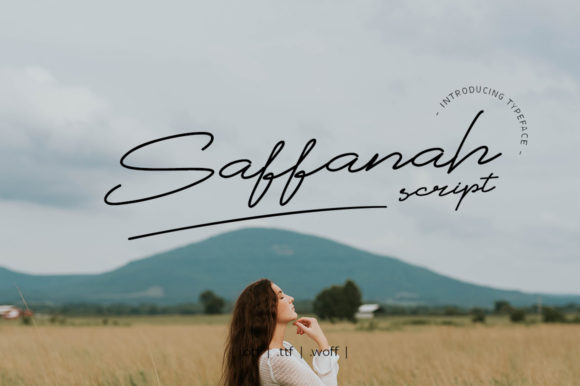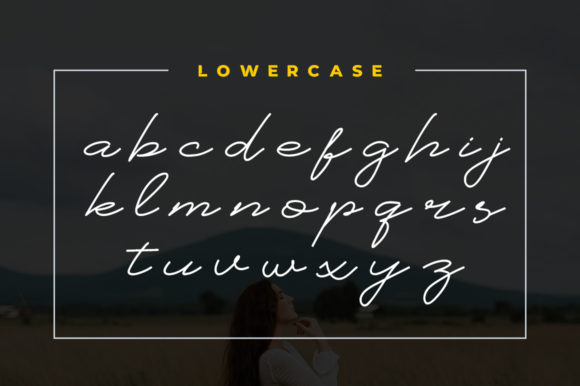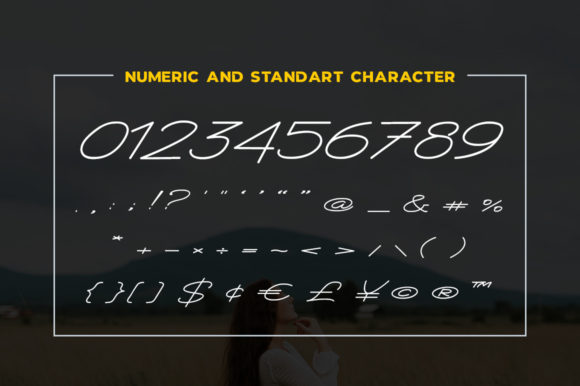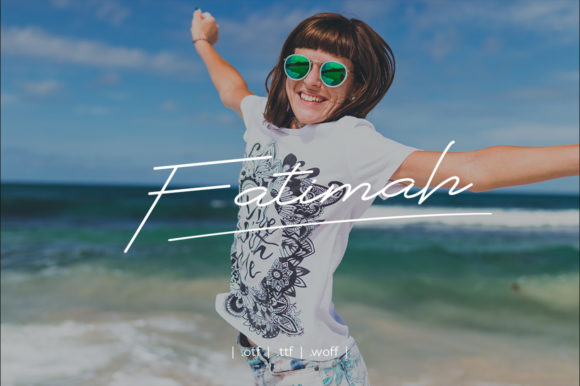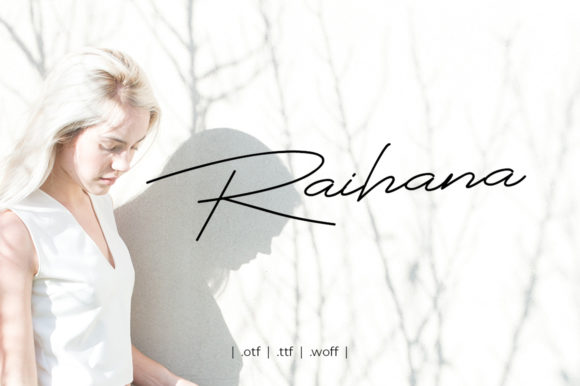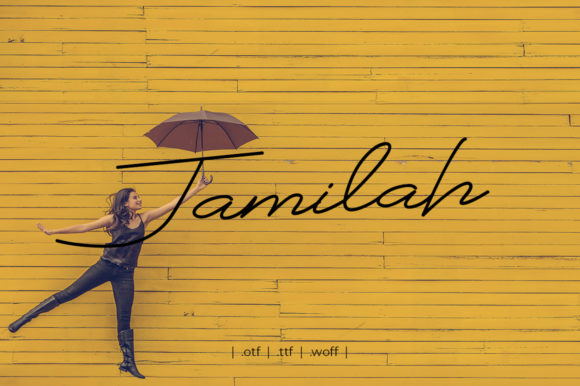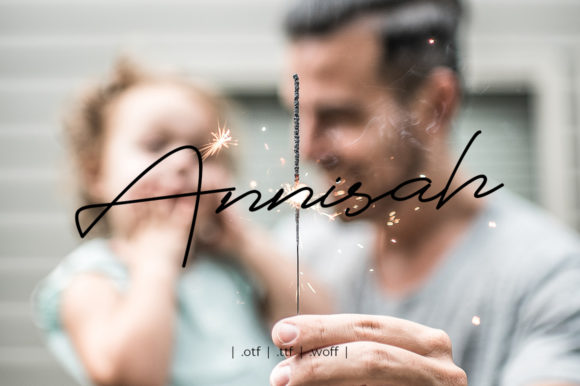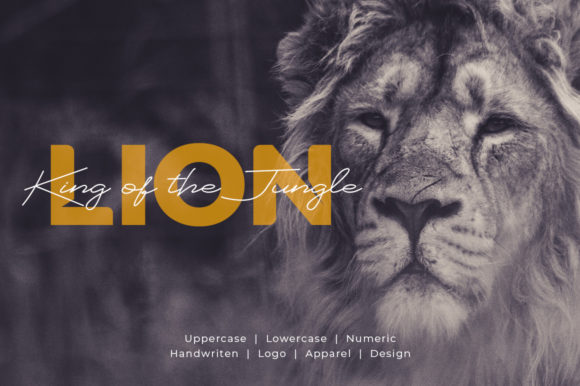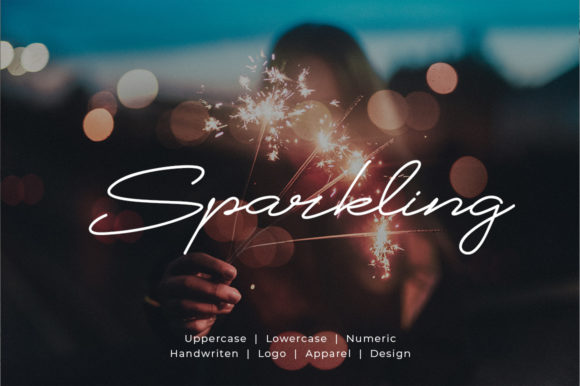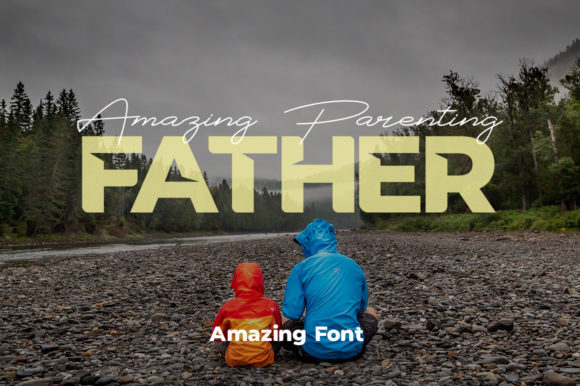
Saffanah Font
About Saffanah Font
Saffanah is a stylish handwritten font. Fall in love with its authentic feel and use it to create gorgeous wedding invitations, beautiful stationary art, eye-catching social media posts, and cute greeting cards.